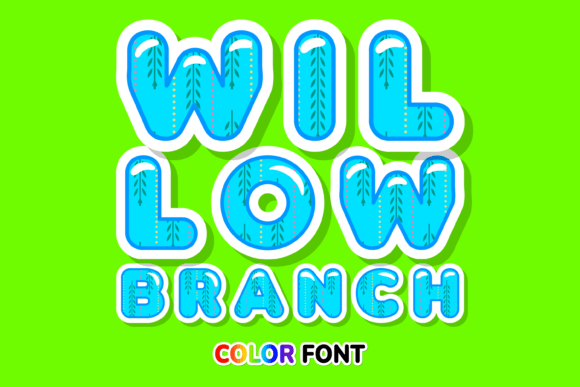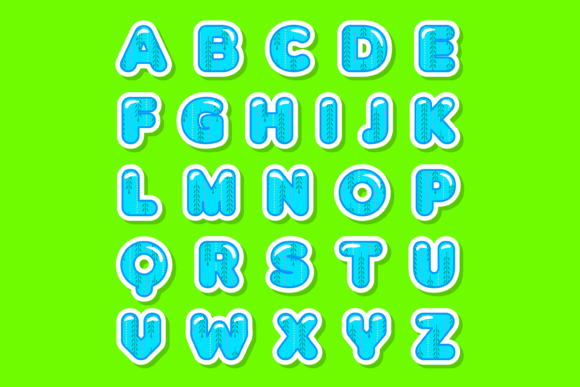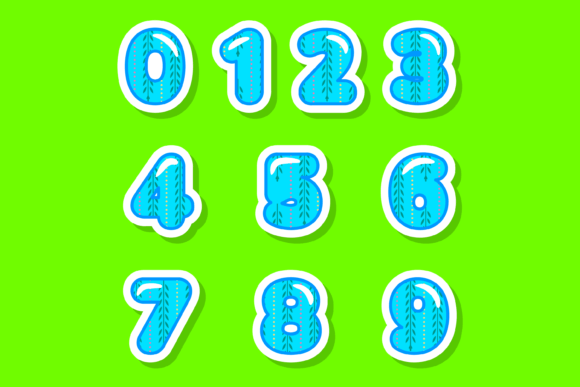
Willow Branch Font
About Willow Branch Font
Willow Branch is a captivating and unique color font inspired by the graceful elegance of the sallow tree. With its intricate branches and delicate leaves, this font is the perfect choice for adding a touch of natural beauty and charm to your custom designs, DIY crafts, and creative projects.
Imagine using Willow Branch to create stunning invitations adorned with whimsical branches, designing beautiful stationary art featuring the graceful curves of willow branches, or crafting eye-catching social media posts with a touch of nature’s allure. The font’s organic shapes and vibrant colors will bring your creations to life, adding a lovely and enchanting touch.
Willow Branch offers a range of earthy tones that can be used to evoke the peaceful and soothing qualities of nature. Each letter is meticulously crafted to mimic the intricate patterns and textures found in sallow branches, giving your designs a unique and mesmerizing aesthetic.
Embrace the natural beauty of Willow Branch and let it inspire your creativity. Whether you’re a designer seeking to infuse your projects with a touch of whimsy or a DIY enthusiast looking to add a hint of nature’s elegance, Willow Branch will be an amazing choice to bring a lovely and captivating touch to your creations.